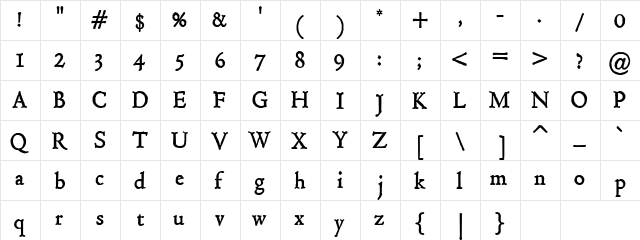
Hultog Regular
Hultog offers clean, dependable letterforms without strong stylistic allegiance, making it a practical choice for designers who need flexibility.